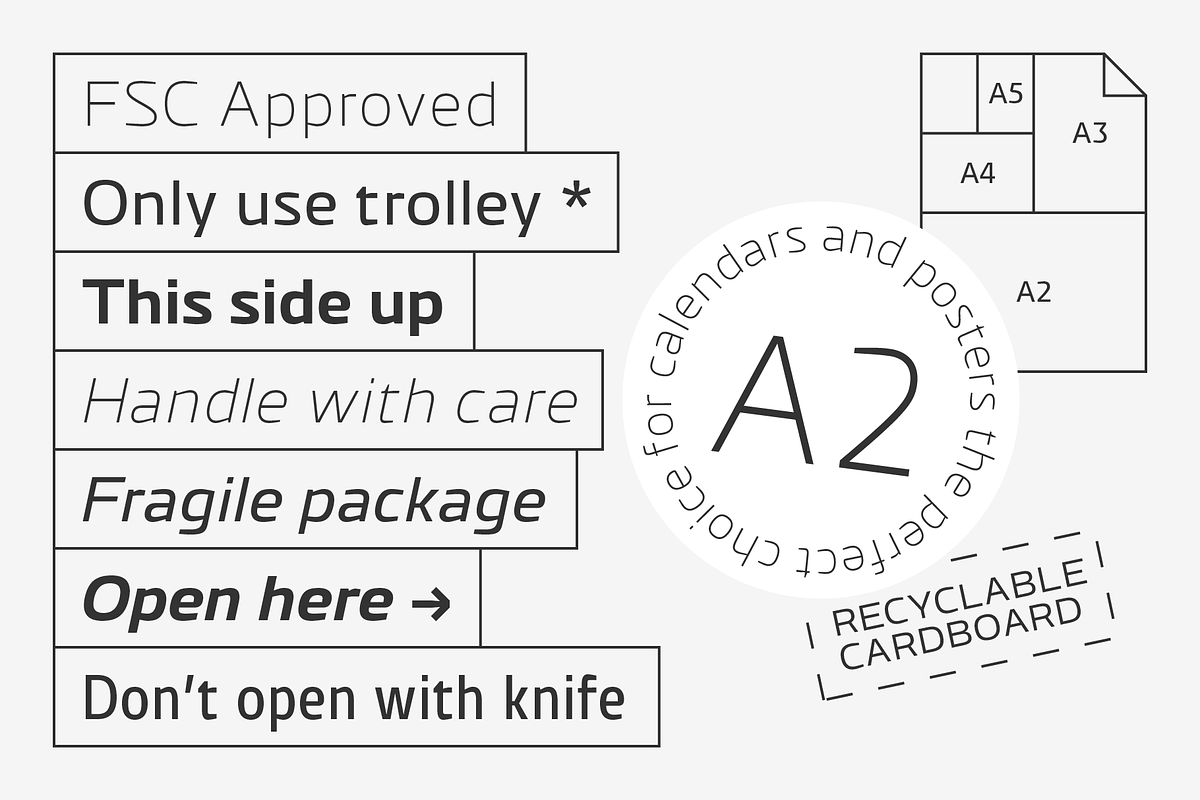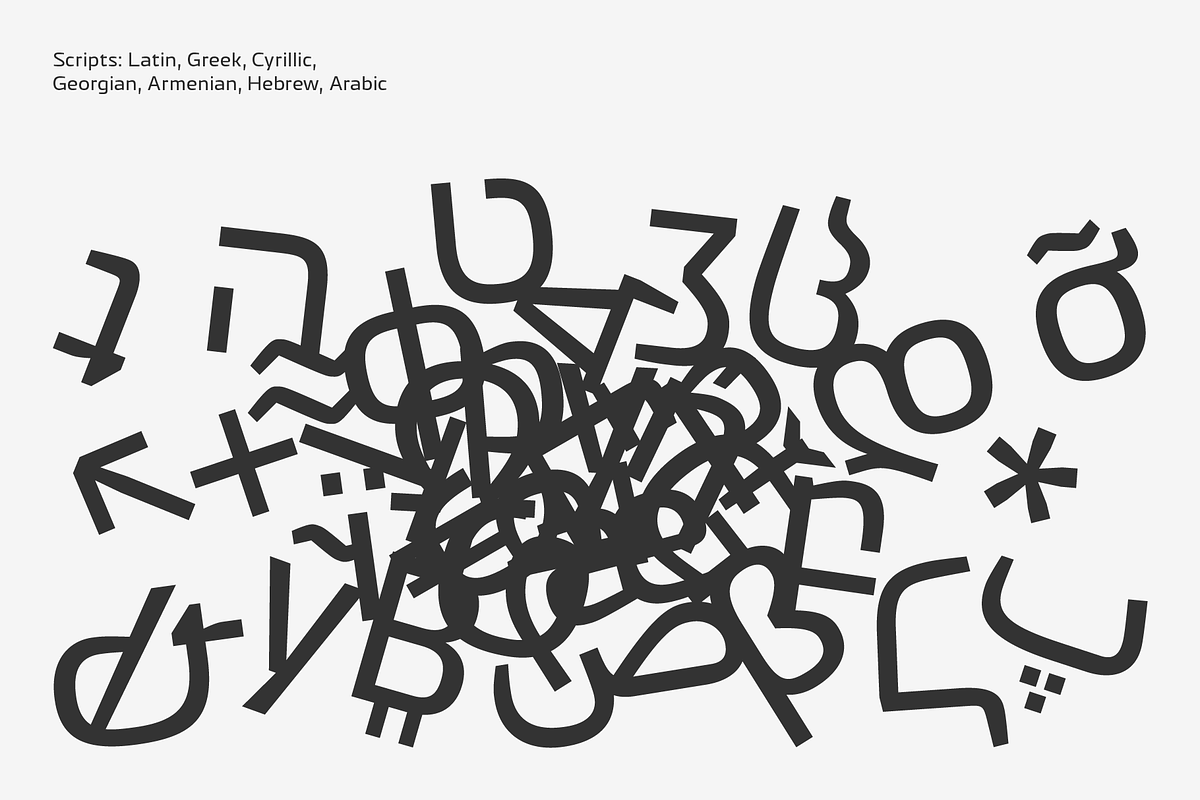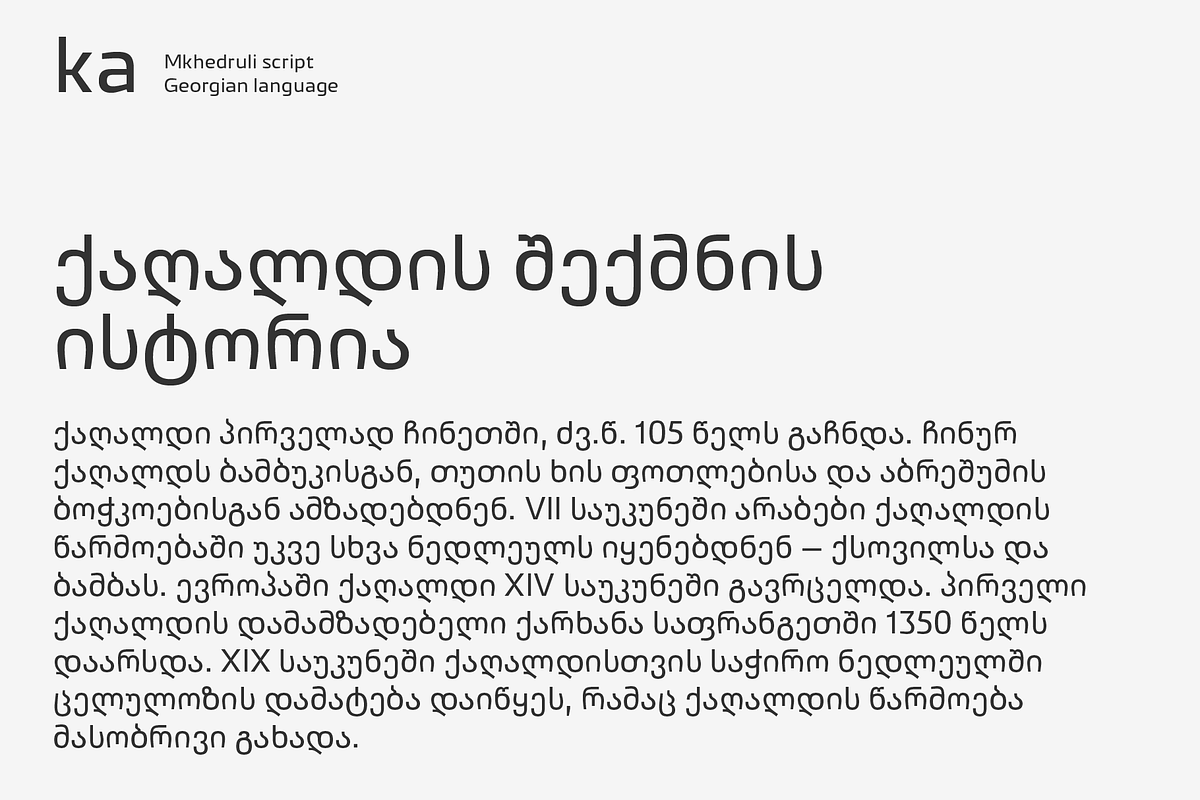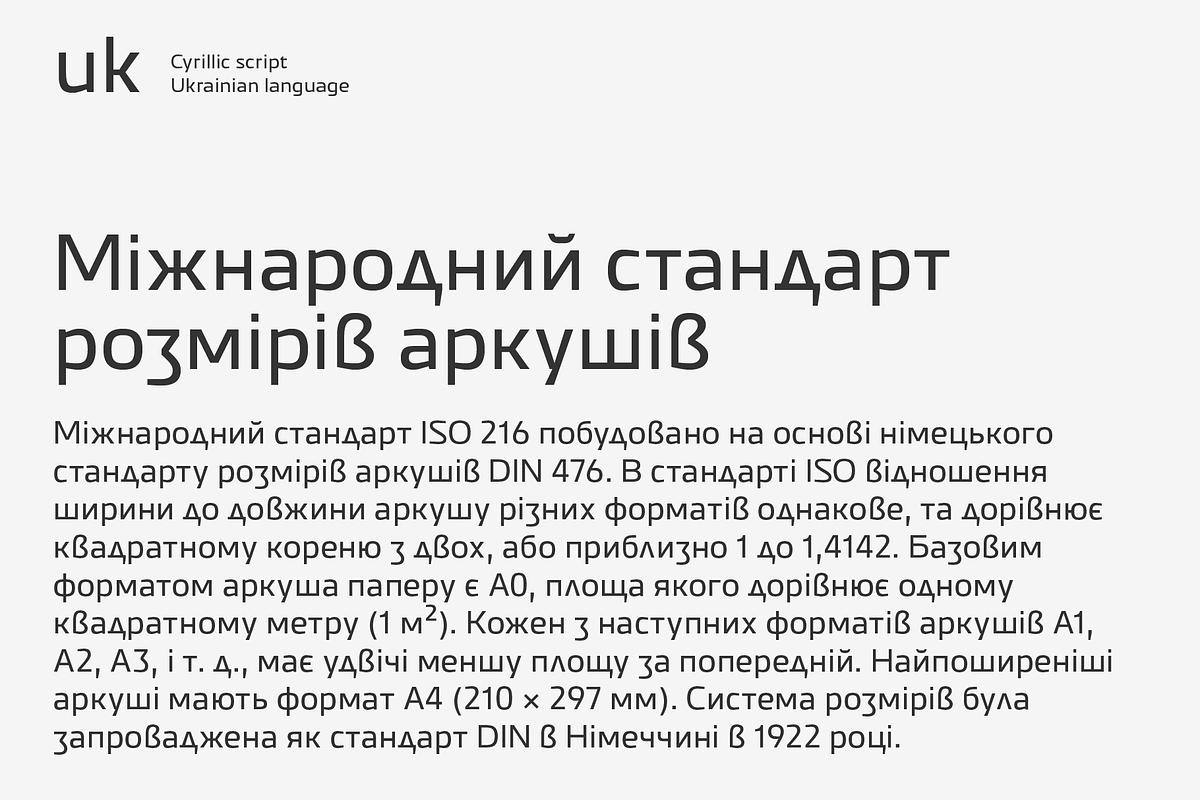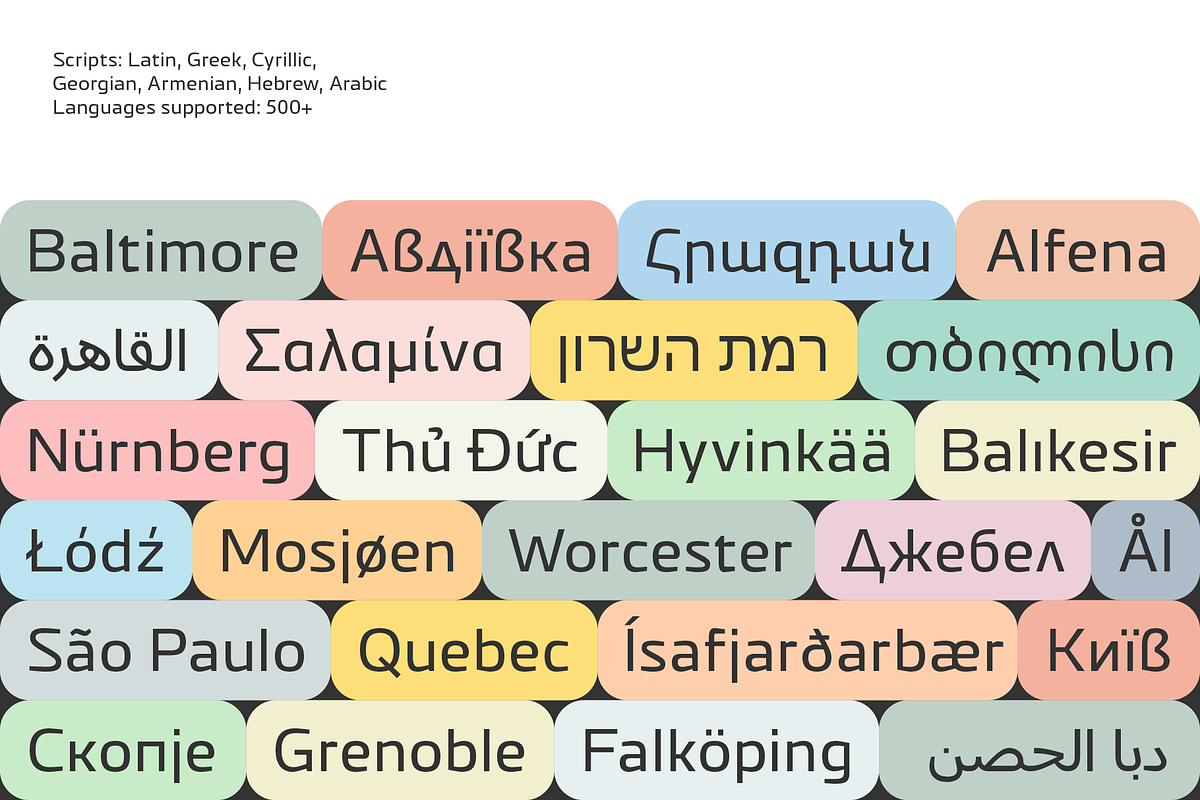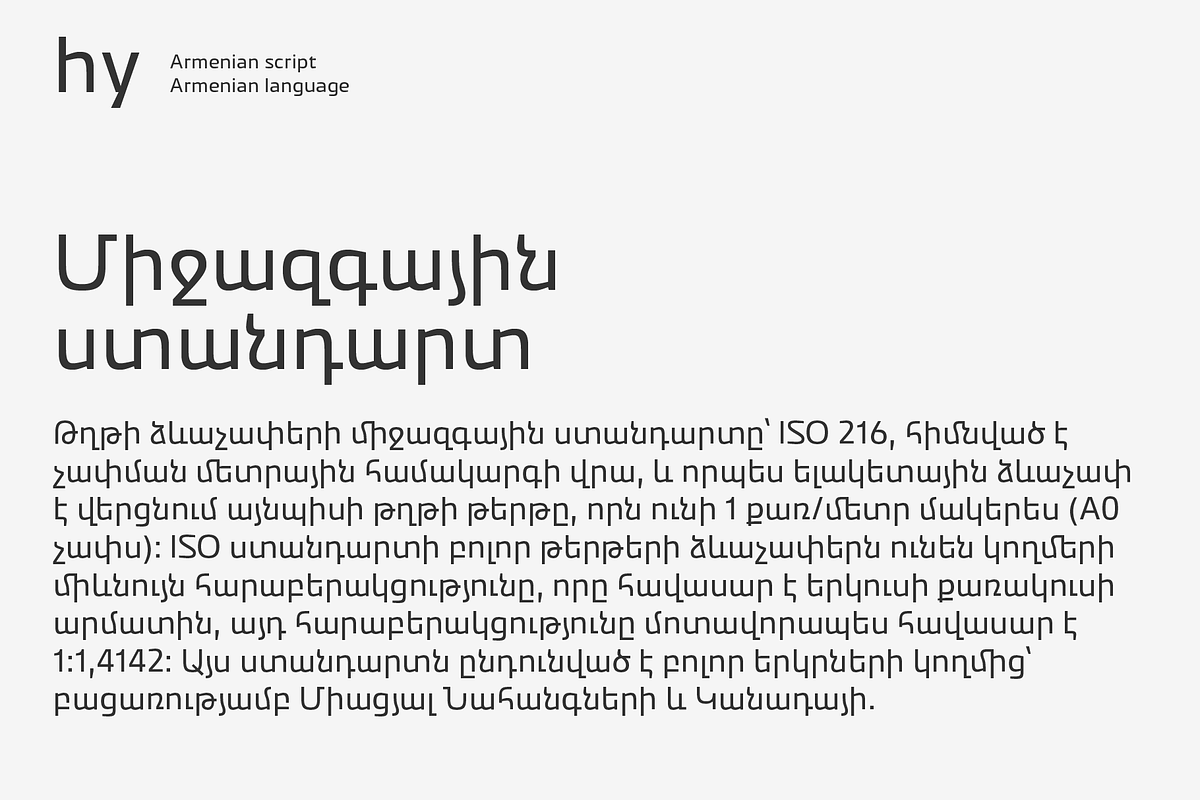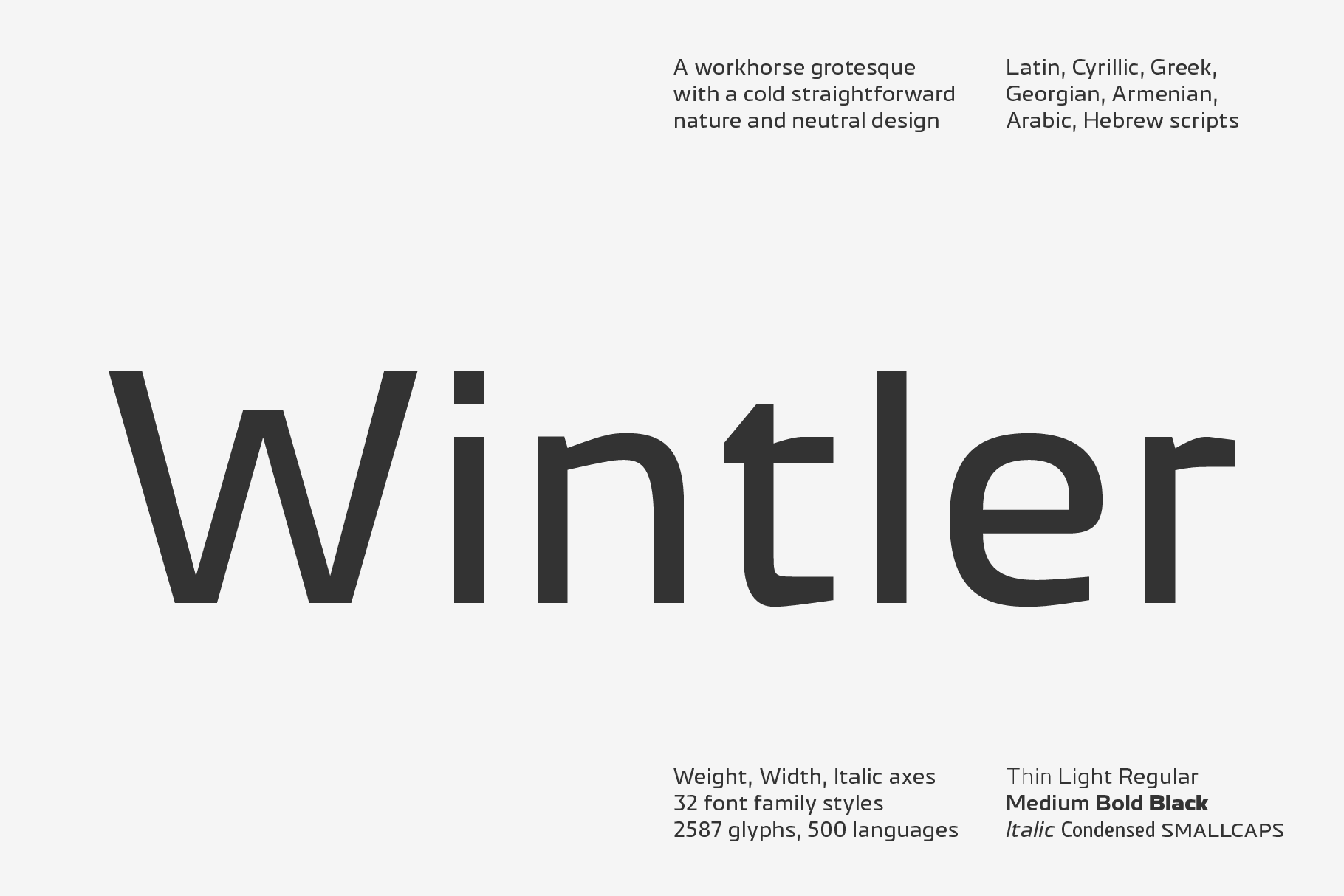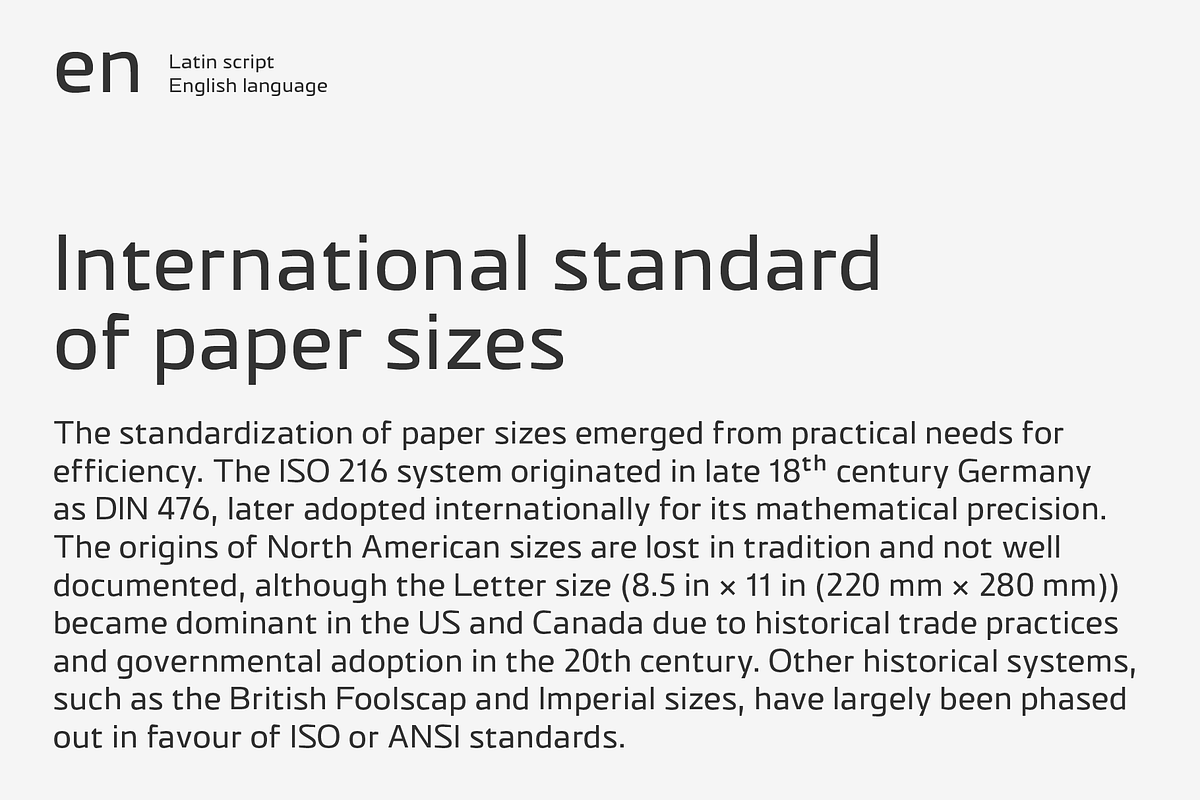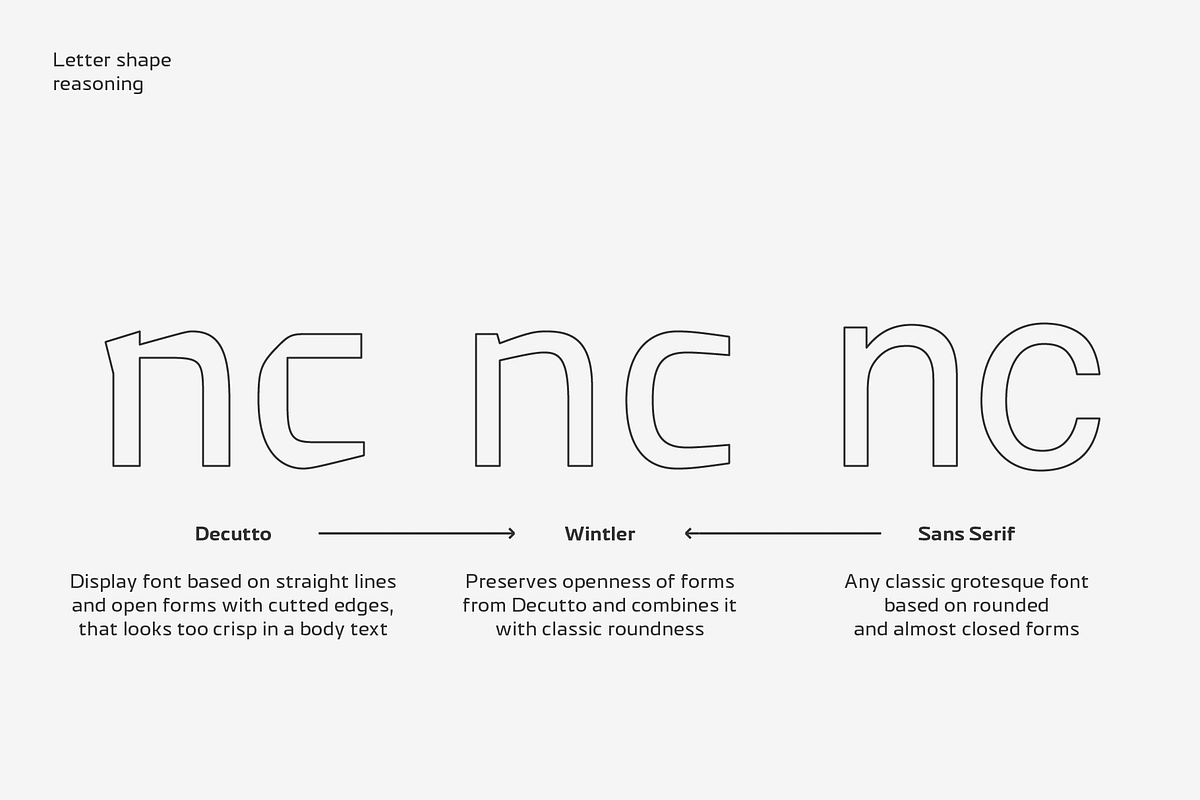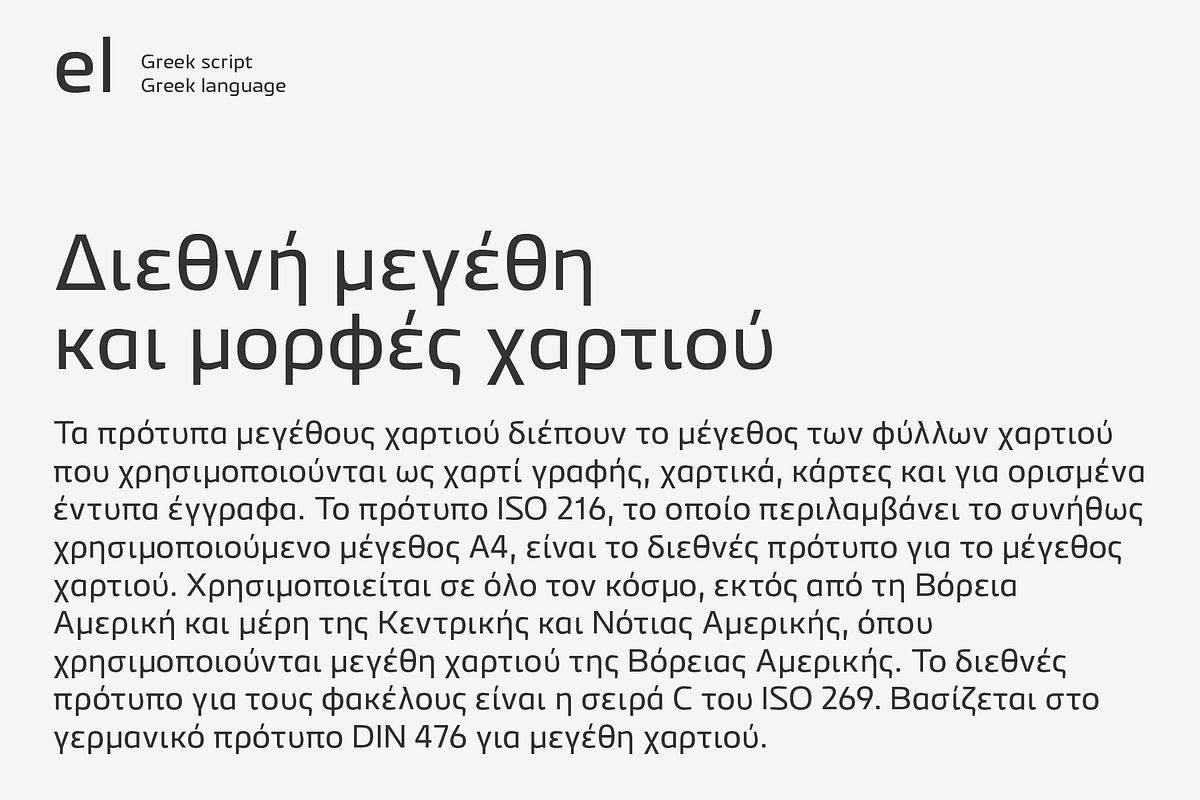
Wintler font
Wintler is a workhorse grotesque with a cold straightforward nature and neutral design. Its openness of forms originates from the award-winning Decutto typeface and is adapted for a more universal use.
The story of Wintler originates from a cases where designers tried to use the Decutto typeface not only for headings, but also for body text. Well, Decutto wasn't designed for that, because it built on straight simplified forms that looks too crisp in a body text. The goal of Wintler is to preserve the openness of Decutto's forms and gently translate it into a more universal grotesque. Therefore, its letter shape balances between simplified rectangularity and classic roundness. The font family also received a wide range of styles from Thin to Black, from Normal to Condensed, and from Upright to Italic, as well as a variable font with Width, Weight, and Italic axes. This rework makes Wintler good for both headings and body text.
In Cyrillic, the shape of some letters such as “б в д з л” moves away from square forms in order to diversify the texture of the text, using more ascenders, descenders, as well as more rounded and triangular shapes. Also, the letters “Д д” have an asymmetrical right descender, visually completing the group of letters like “ц щ”. In the same time, the other letters such as “г д ж и п т ц ш ш ю ю” have both square (default) and round (Bulgarian) forms. This approach is transitional and its goal is to use fewer square forms in modern Cyrillic.
Styles: 32. Thin, Extra Light, Light, Regular, Medium, Bold, Extra Bold, Black. Upright and Italic. Normal and Condensed.
Scripts: Latin, Cyrillic, Greek, Armenian, Georgian, Hebrew, Arabic
OpenType features
Small Capitals: Lowercase letters are replaced with Small Capitals forms.
Capitals to Small Capitals: Uppercase letters, Lining figures, and some punctuation are replaced with Small Capitals forms.
Case Sensitive Forms: ()[]{}‹›«»-–—•·#%‰@ and Arrows are centered on capitals. Oldstyle figures (if presented) are replaced with Lining figures.
Contextual Alternates: Дз дз
Standard Ligatures: ЇЇ її ії ել մէ մէ մն մի վն մխ
Stylistic Set 1 “Arrows”: Left - Right - Up | Down | Left Right - Up Down | North West North East / South East South West /
Localized Forms: Characters substituted by their adapted alternate form for Azeri, Bulgarian, Catalan, Dutch, German, Kazakh, Macedonian, Moldavian, Polish, Romanian, Serbian, Tatar, Turkish languages.
Case conversion for monotonic Greek: ΆΈΉΊΌΎΏ. Greek uppercase accented characters lose their tonos accent and retain only dieresis in All Caps mode. Turned on by default. If you need tonos accents in All Caps then turn off Contextual Alternates (calt) feature.
Figures: Lining (default), Oldstyle, Small Caps, Proportional (Lining, Oldstyle), Tabular (Lining, Oldstyle), Superscript, Subscript, Numerator, Denominator.
Fractions: ¼½¾⅐⅑⅒⅓⅔⅕⅖⅗⅘⅙⅚⅛⅜⅝⅞⅟ (precomposed). Any other fractions (even those typed through a slash) will also be displayed correctly, with the automatic replacement to Numerator + fraction + Denominator.
Slashed Zero: All “0” figures are replaced with a slashed/dotted zero.
Ordinals: adehlnorst
Glyph Composition: Set of diacritics (600+ characters) precomposed from a base characters and combined diacritical marks.
Mark Positioning: Diacritical marks positioned for a base characters.
Arabic shaping: Initial, Medial, Terminal forms. Required Ligatures.